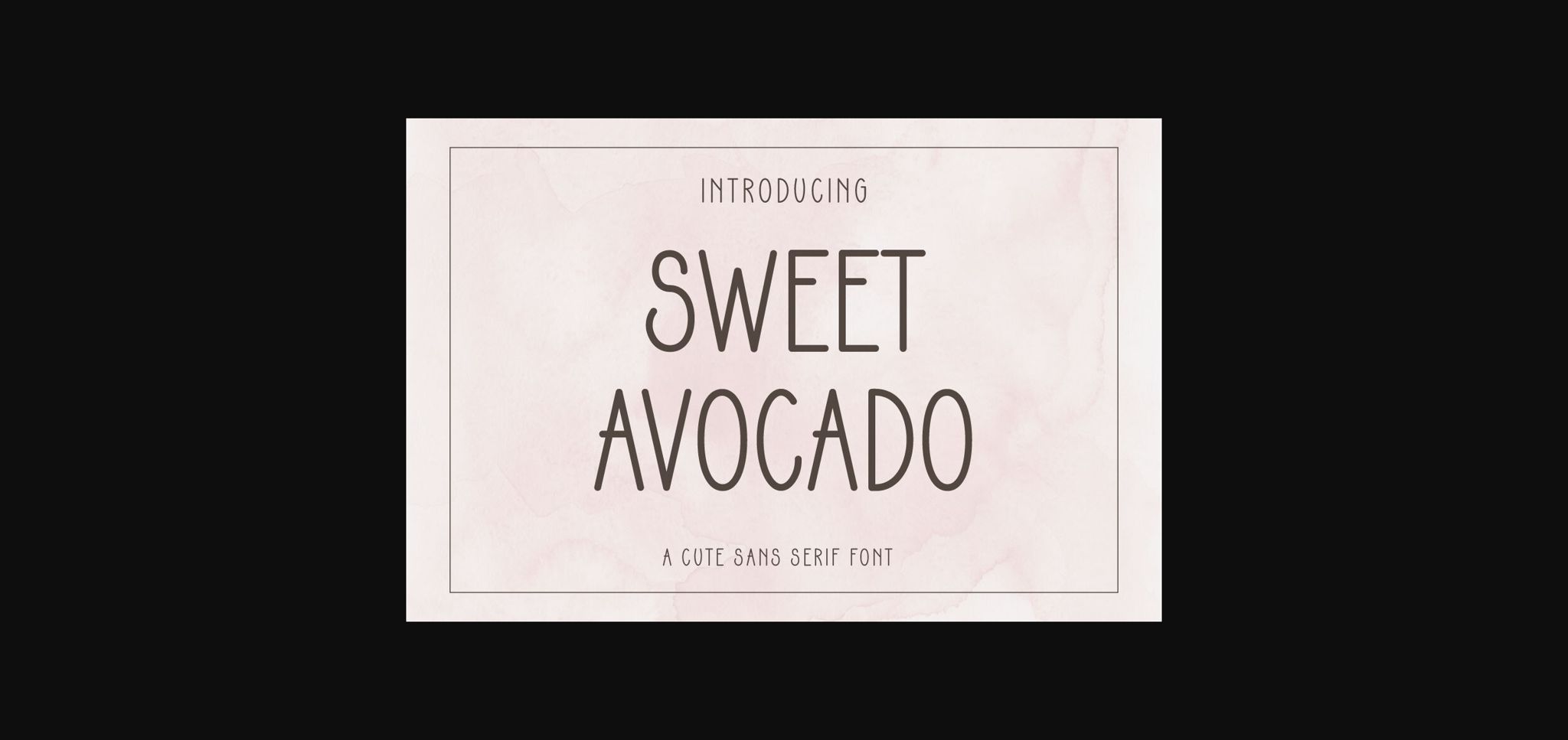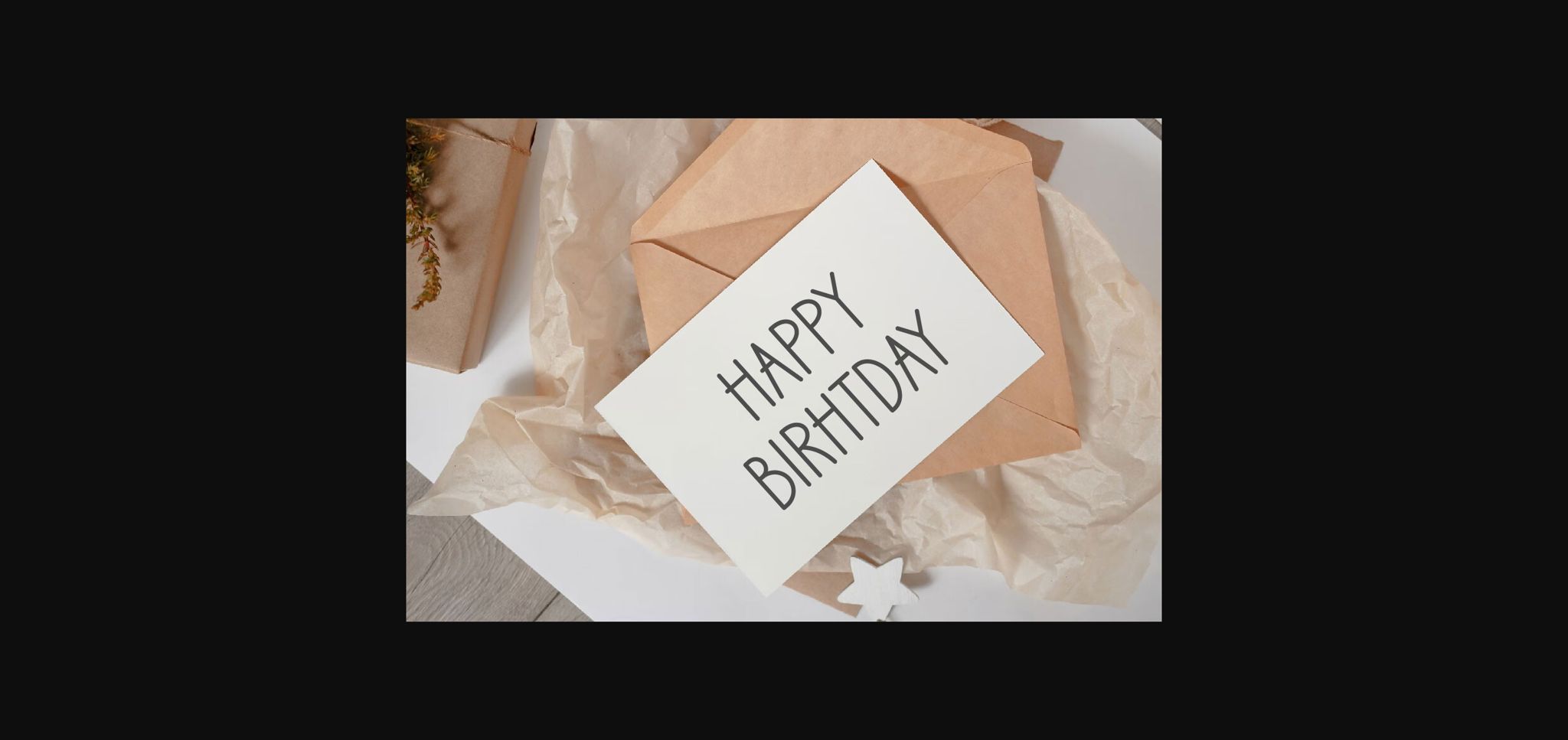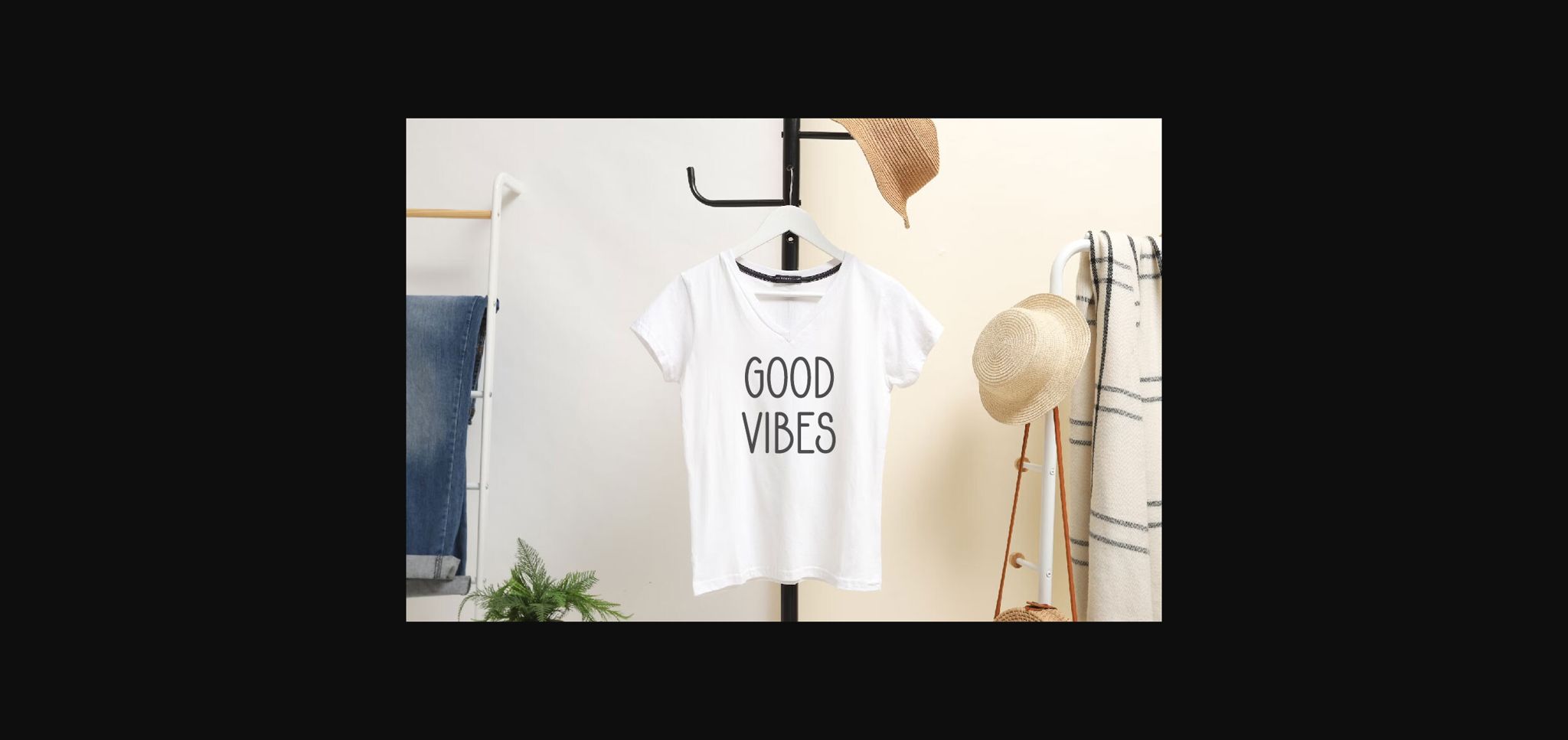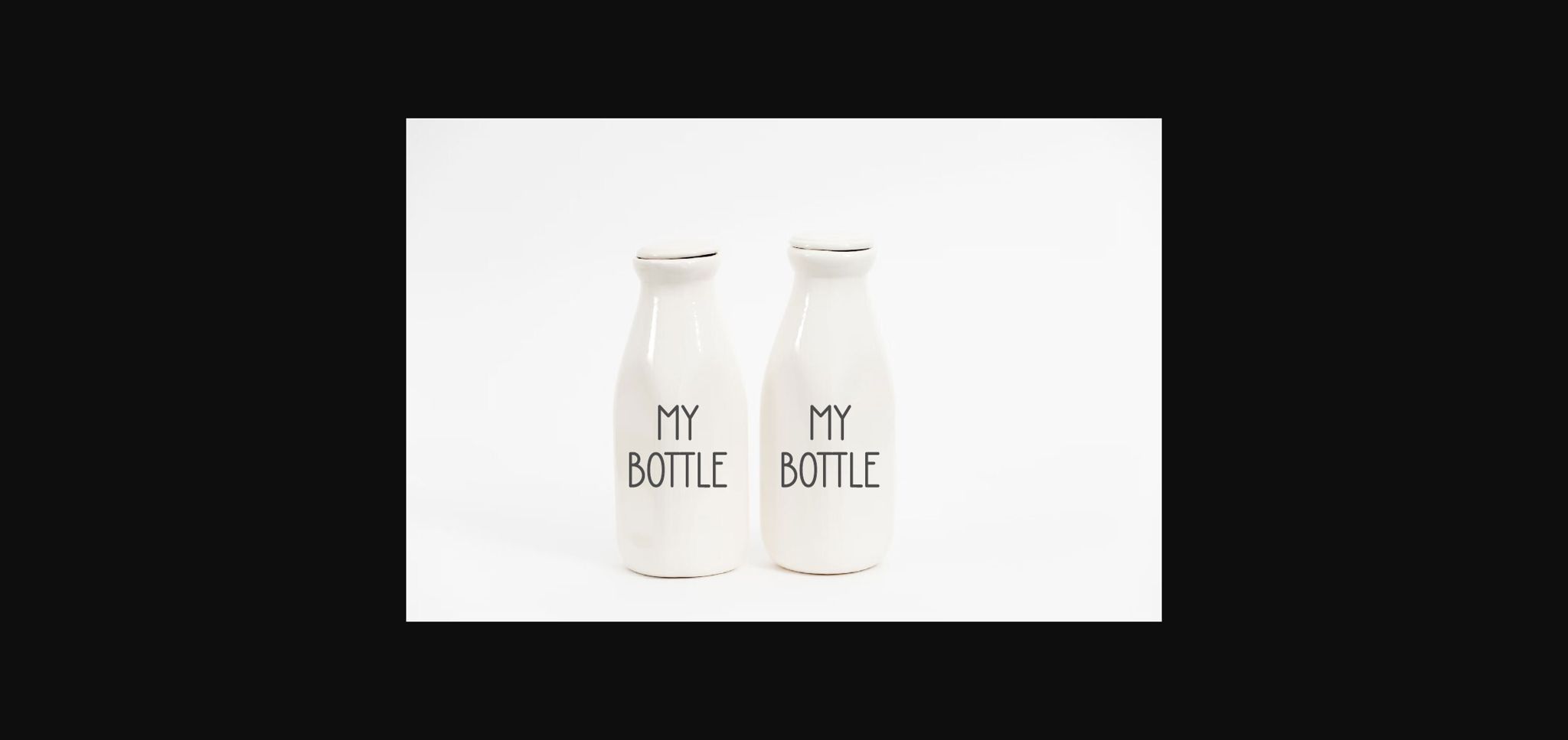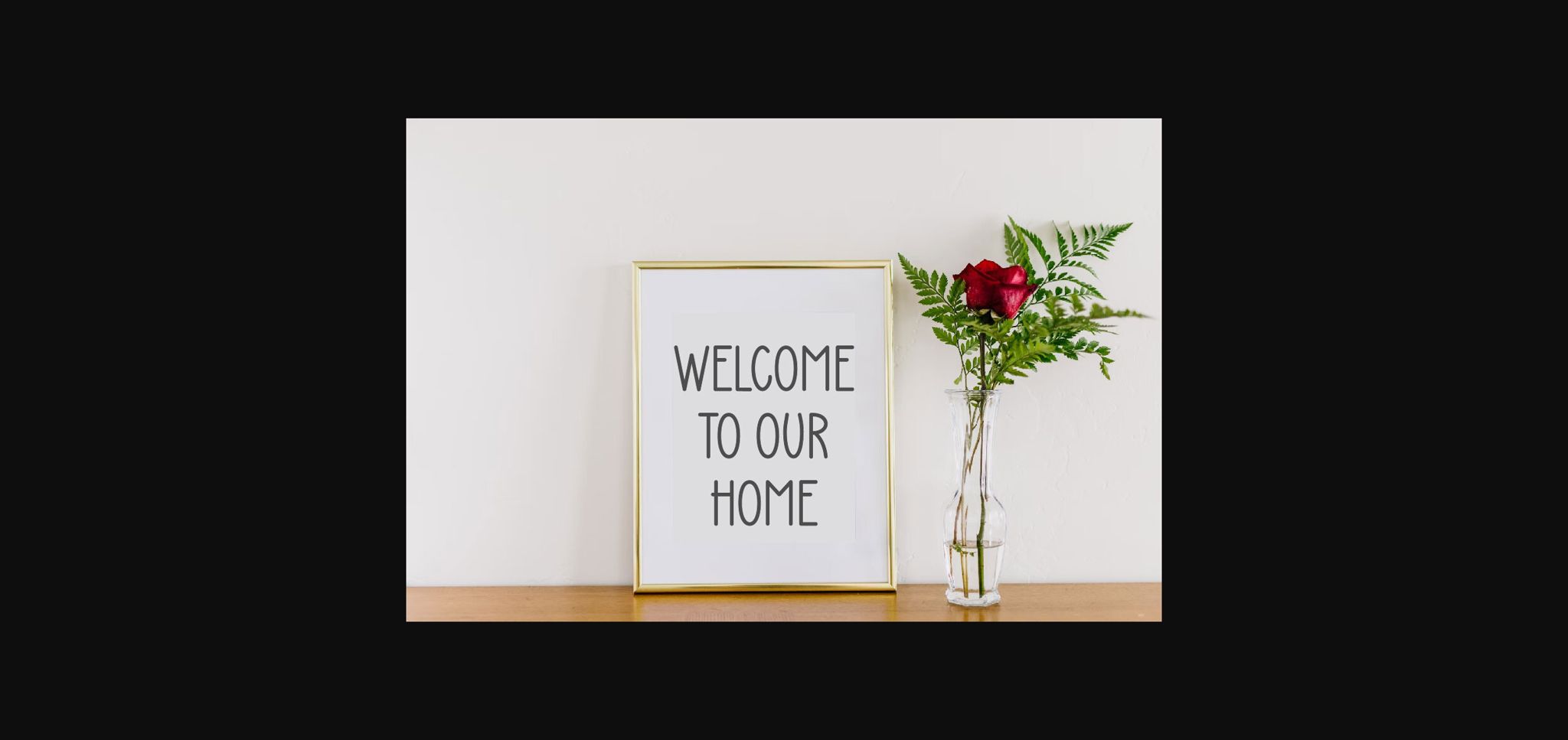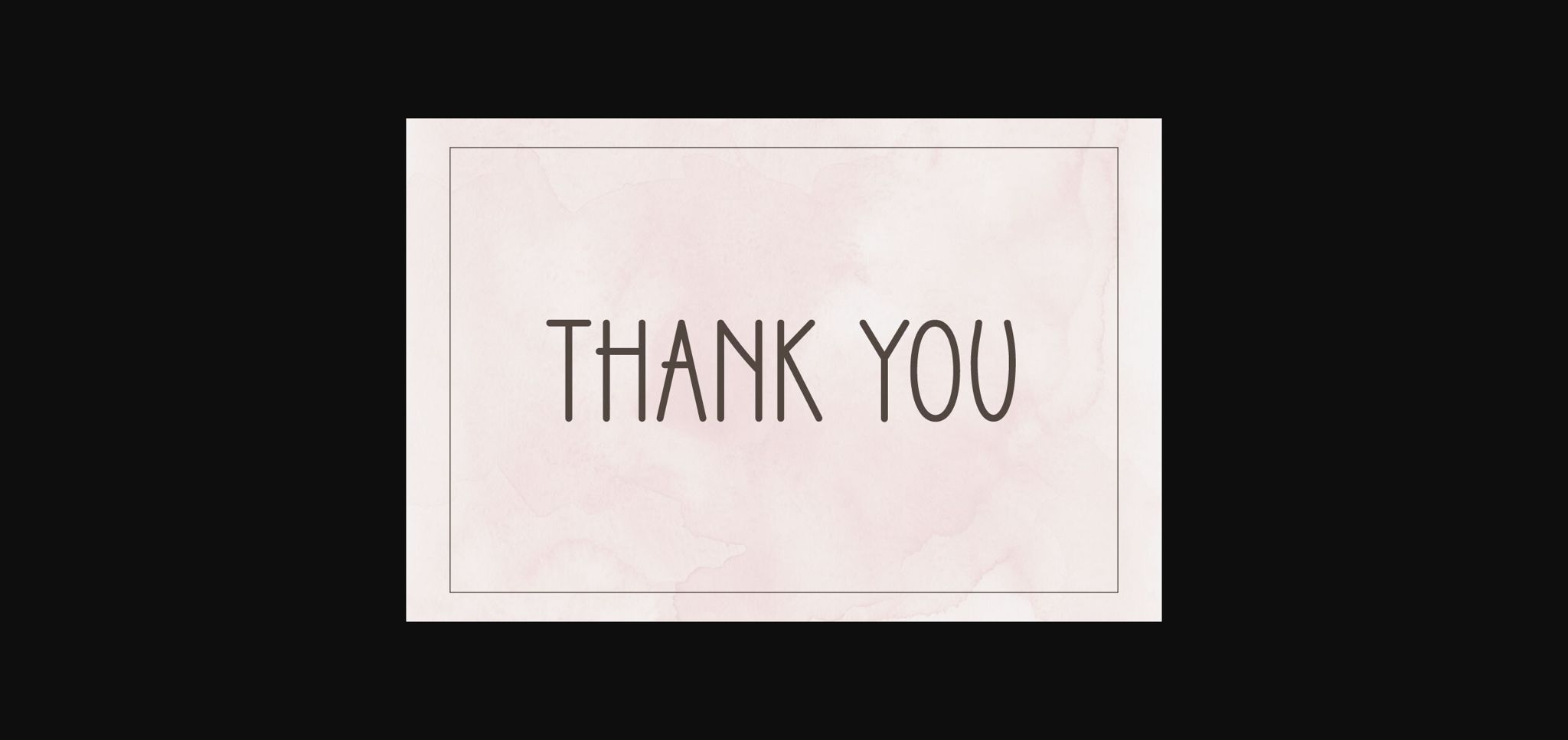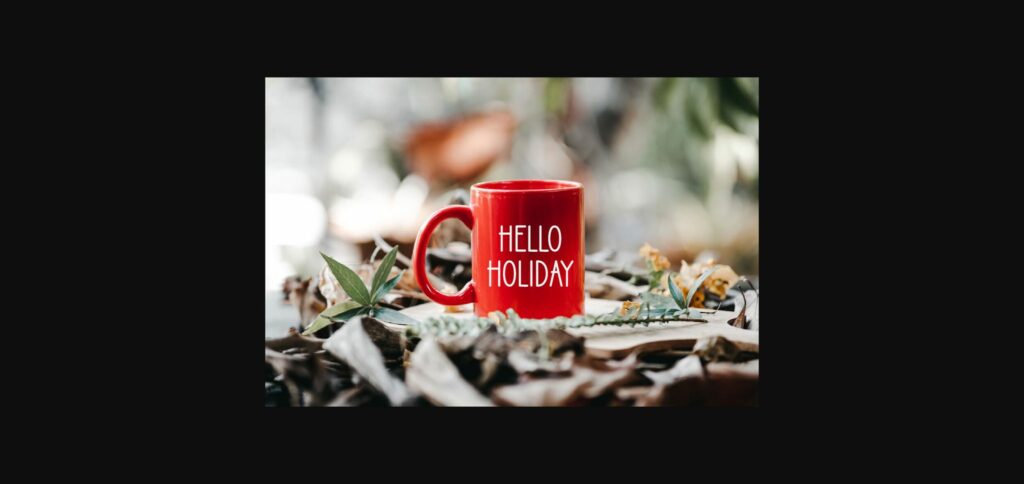
Sweet Avocado Font
About Sweet Avocado Font
Sweet Avocado is a simple and cute sans serif font that imbues an irresistible charm! Its adorable aesthetics make it ideal for creative crafts, enchanting wedding invitations, captivating cards, and dynamic blogging needs. From posters and quotes to branding endeavors, Sweet Avocado brings a delightful personal touch, transforming even mundane designs into mesmerizing visual experiences!